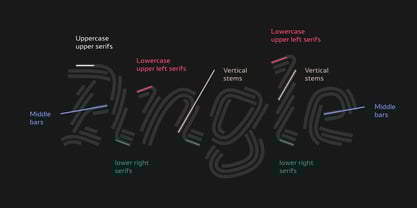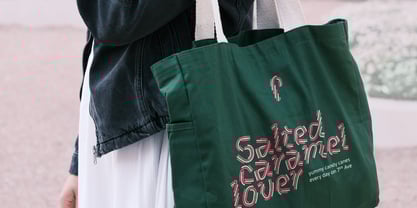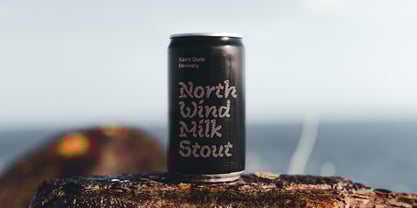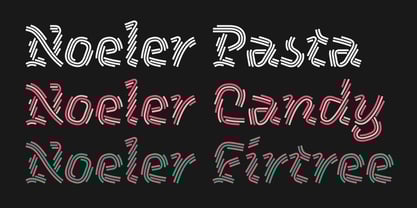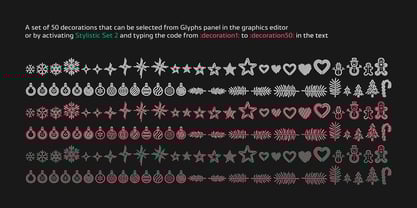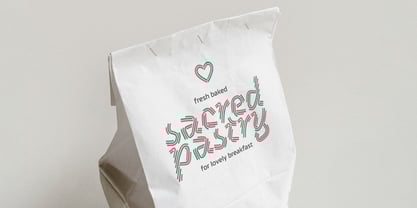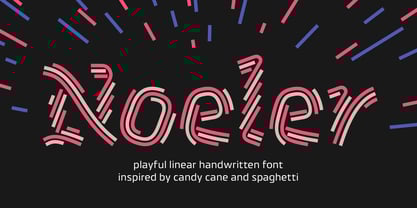
Noeler
by Michael Rafailyk
The Noeler Font Family was designed by Michael Rafailyk and published by Michael Rafailyk. Noeler contains 5 styles and family package options.
Noeler is a playful linear handwritten font with a festive mood. The font family includes one non-color font (Pasta) inspired by spaghetti shapes, and two color fonts (Candy, Firtree) inspired by candy cane and Christmas colors. Color fonts are represented in two versions needed for different applications and web browsers, and if you're not sure about which version you need, check out the Noeler Color package which includes all the color fonts in both versions. The fonts also contains a set of 50 primitive linear decorations that could be handy for Christmas designs.
About Michael Rafailyk
Michael Rafailyk is a Type Designer from Ukraine specialized on Latin, Greek, Cyrillic scripts. He like to take strange and unpopular ideas and make them usable. Thanks to many years of experience working with branding, Michael is well aware of the role typefaces play in the communication between the brand and the customer. At the same time, his experience in musical composition came in handy in the sense of rhythm and the overall visual harmony in the text.